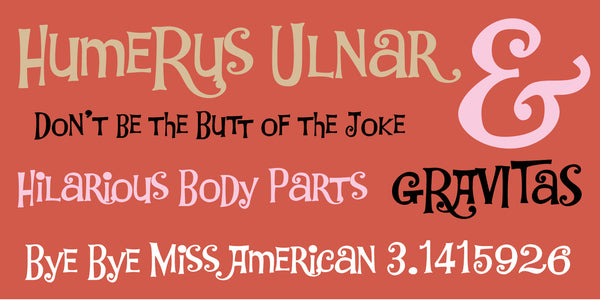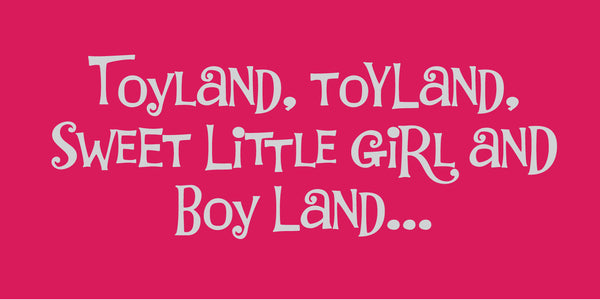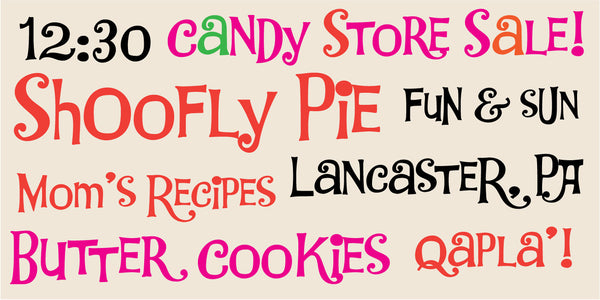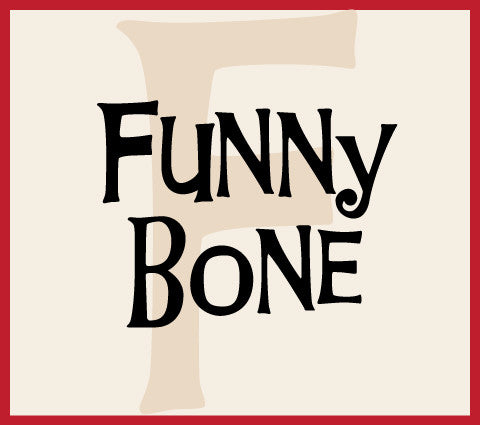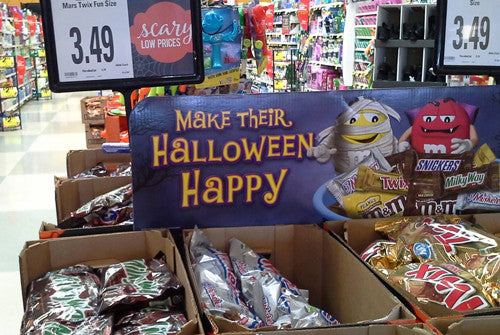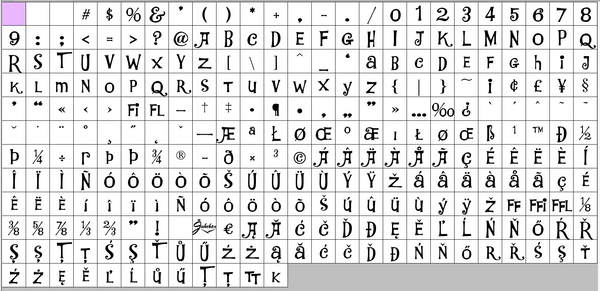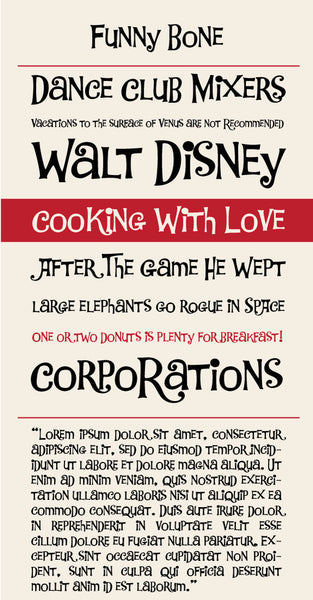
Funny Bone
Funny Bone will tickle your ulnar nerve with its fun and child-like exuberance! A digital revival of an older photo-typositing face, Funny Bone makes use of size variations and a modulated baseline to wield its charm. Perfect for any light hearted design or for anyone who's a kid at heart!
Notable Use: Mars/M&Ms Candy Co. used Funny Bone for their 2014 Halloween grocery store displays.